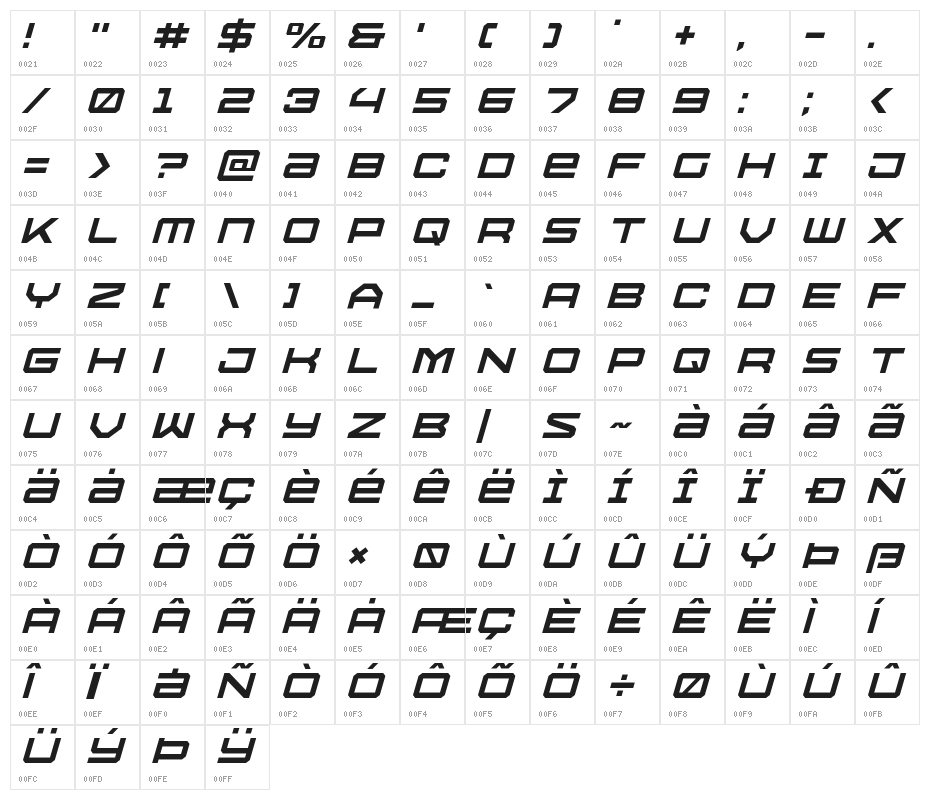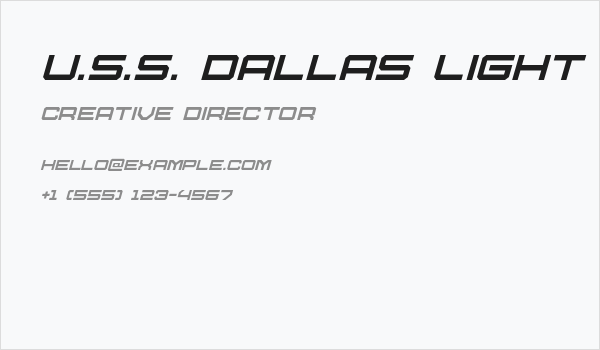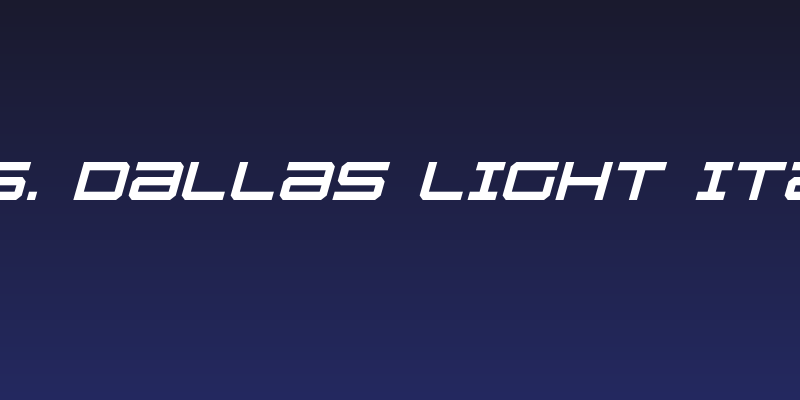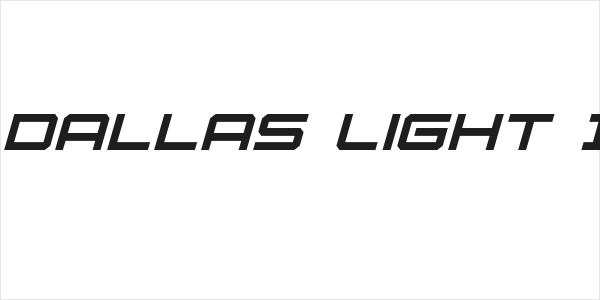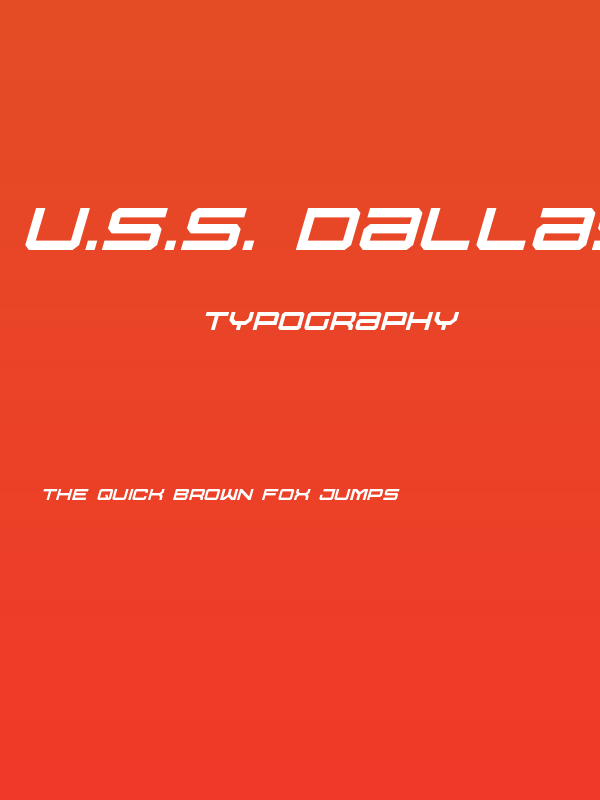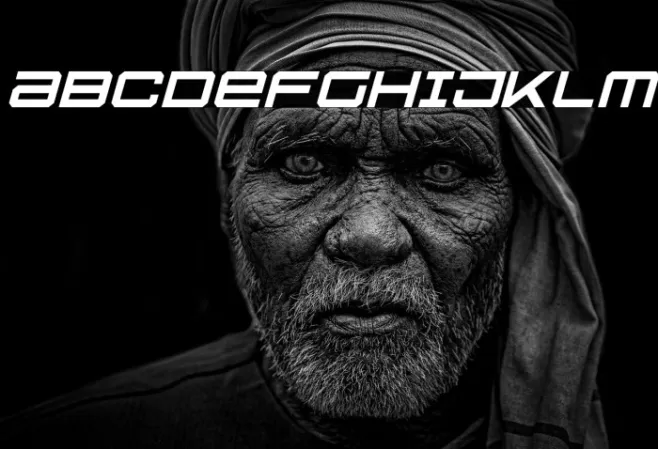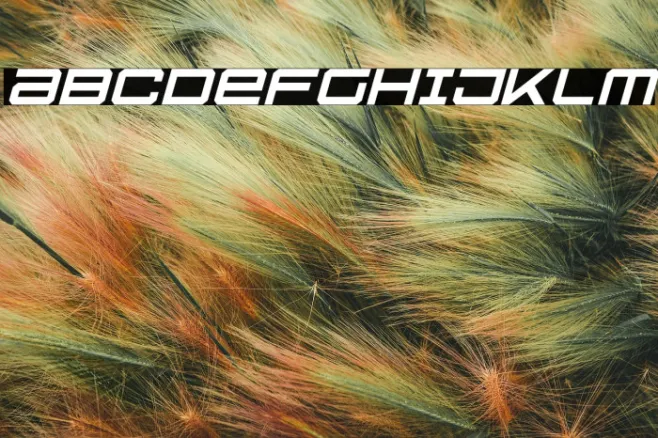
U.S.S. Dallas Light Italic Font
U.S.S. Dallas Light Italic Description
This font features a sleek, modern design with a futuristic flair. The characters are slightly italicized, giving a sense of motion and dynamism. Each letter is crafted with precision, showcasing a geometric style that is both clean and sharp. The uppercase and lowercase letters maintain a consistent style, with angular cuts and a uniform stroke width. The numerals and special characters follow the same design principles, ensuring a cohesive look across all elements. This font is ideal for projects that require a contemporary and tech-savvy appearance.
| Use Case | Headlines, Logos, Digital Interfaces |
| Proposed Projects | Ideal for technology branding, sci-fi themed projects, modern advertising, and digital interfaces. |